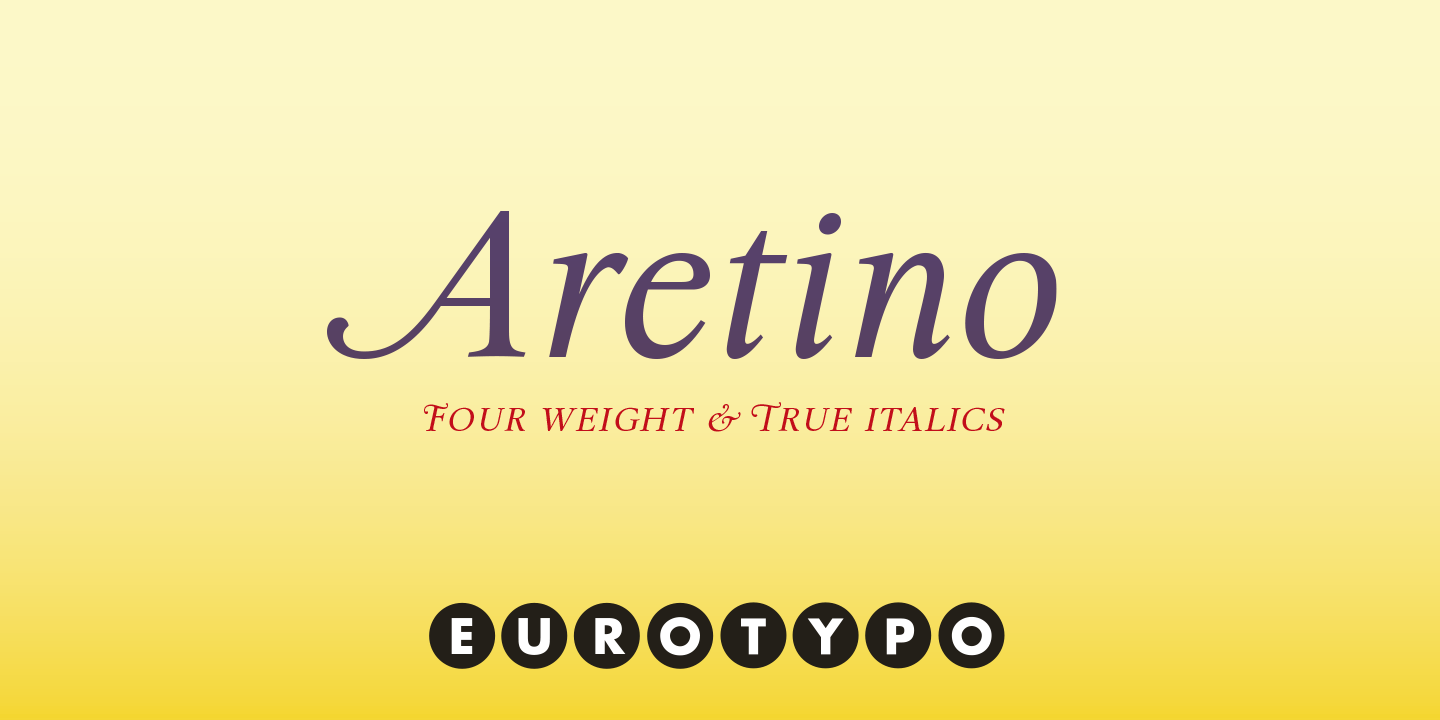
Aretino Font is perfect for elegant book titles, luxury brand logos, wedding invitations, premium packaging designs, classical music posters, art gallery exhibitions, high-end restaurant menus, and sophisticated editorial layouts.
Aretino Font is exciting because it embodies the timeless elegance of Renaissance typography while offering modern functionality for contemporary design projects. This typeface captures the artistic spirit of Italian calligraphy and transforms it into a versatile digital format that brings sophistication and cultural richness to any design application.
The Aretino Font family includes Regular, Italic, Bold, and Light weights, along with decorative alternates and ligatures. Each family member maintains the distinctive classical aesthetic while providing designers with comprehensive options for creating elegant typographic hierarchies and refined visual compositions.
Aretino Font represents a perfect fusion of historical authenticity and modern design sensibilities. Named after the Italian Renaissance writer Pietro Aretino, this typeface draws inspiration from 16th-century manuscript traditions while incorporating contemporary spacing and character optimization. Its flowing letterforms and graceful curves make it particularly appealing for luxury brands seeking to convey heritage and sophistication.
The ornate character of Aretino Font makes it exceptionally suitable for premium applications where elegance is paramount. Fashion houses, jewelry brands, fine dining establishments, and cultural institutions frequently choose this font for its ability to communicate refinement and artistic appreciation. The font's distinctive personality adds immediate prestige to any design project.
Typography connoisseurs recognize Aretino Font Free Download for its authentic historical references and meticulous craftsmanship. The font's letterforms have been carefully studied and adapted from original Renaissance manuscripts, ensuring historical accuracy while maintaining excellent readability in modern applications. This attention to detail makes it invaluable for museums, libraries, and educational institutions.
The versatility of Aretino Font extends beyond traditional print applications. While it excels in book design, magazine layouts, and luxury packaging, it also performs admirably in digital environments. Its optimized character spacing and carefully adjusted metrics ensure excellent readability across various screen sizes and resolutions.
For designers working on heritage brands or classical themes, Aretino Font provides an authentic foundation that resonates with audiences seeking quality and tradition. Its organic curves and humanistic proportions create an immediate emotional connection, making it particularly effective for storytelling and brand narratives that emphasize craftsmanship and cultural values.